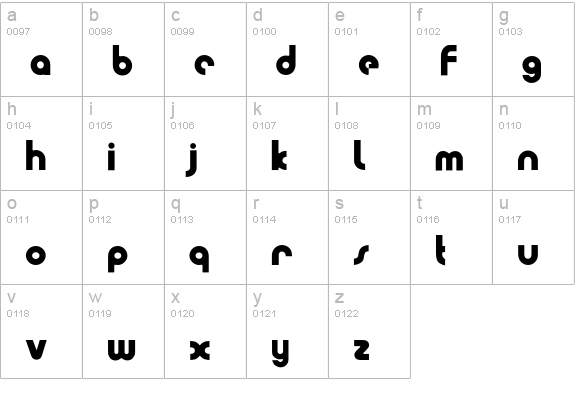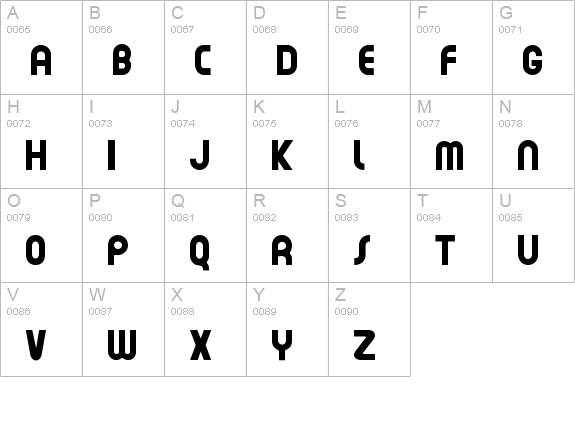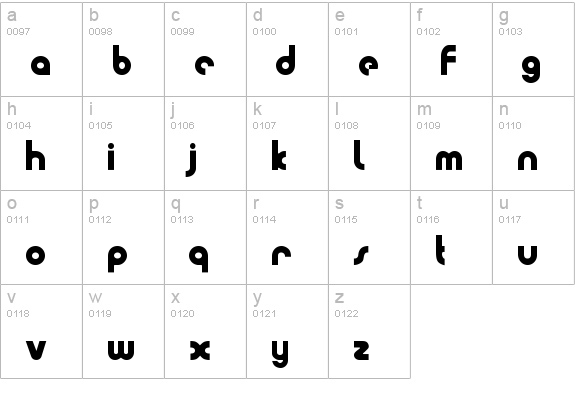
Roundabout Font Details
The Roundabout font is a modern and stylish typeface that exudes a sense of elegance and sophistication. Its rounded edges and smooth curves give it a friendly and approachable look, making it perfect for a wide range of design projects. Whether you're creating a logo, poster, or website, Roundabout font will add a touch of class to your work. What's even better is that the Roundabout font is available for free download at FontsMarket.com. Yes, you read that right - this high-quality font can be yours at no cost at all. Take advantage of this amazing offer and elevate your designs with the Roundabout font today!